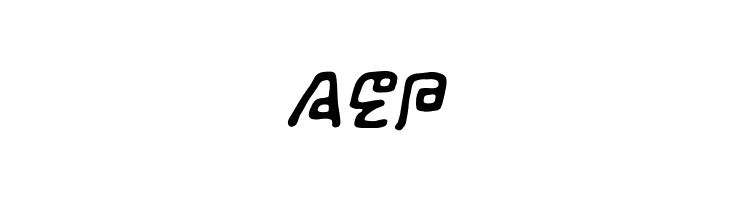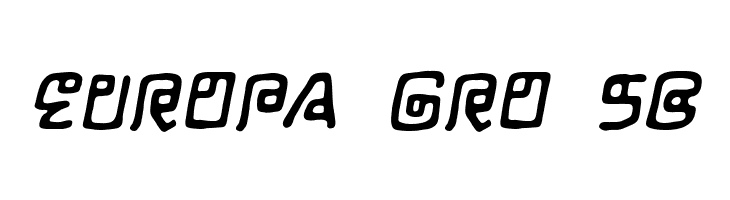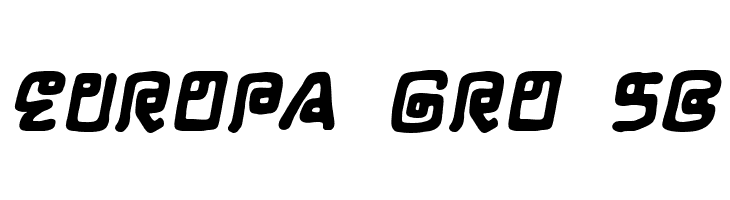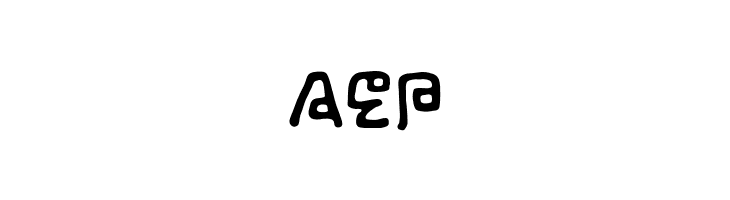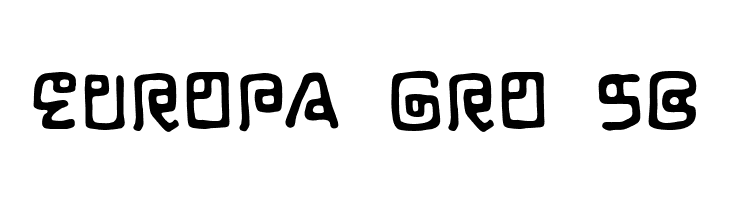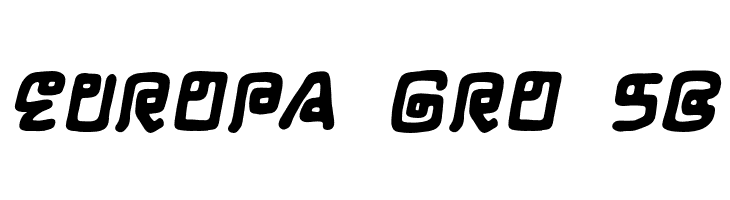
A bold, playful font with an organic, hand-drawn style.
A bold, playful font with a futuristic and retro vibe.
A futuristic, bold, and slightly italicized font with rounded, geometric shapes.
A bold, playful font with a futuristic and quirky design.
A bold, playful font with a futuristic and retro vibe.
A futuristic, bold, and slightly italicized font with a playful, modern style.
A bold, geometric font with clean lines and a modern aesthetic.
A bold, rounded font with a playful and approachable style.
A rounded, bold font with a modern and approachable style.